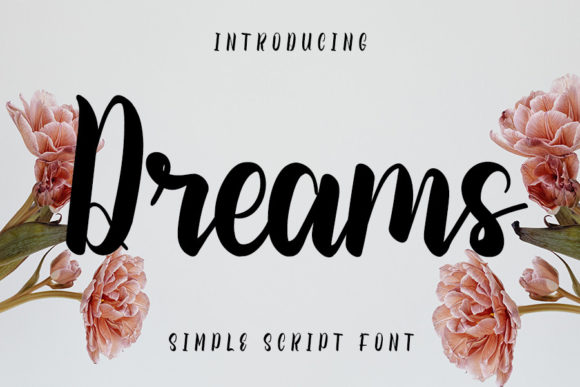
About Dreams Font
Introducing “Dreams,” a lovely handwritten font crafted to make your work stand out with its elegant and curvy lines. This font is not just a typeface; it’s a carefully designed element that brings a touch of sophistication to your creative projects. Whether you’re working on product packaging, a branding project, magazine covers, social media graphics, weddings, or simply expressing words above a background, Dreams is the perfect choice.
The charm of Dreams lies in its delicate yet impactful design, where each character exudes elegance. Imagine using this font to enhance product packaging, where its graceful lines contribute to a refined and stylish presentation. Envision it in a branding project, adding a personal and sophisticated touch to your brand identity. Whether applied to magazine covers or social media visuals, Dreams becomes a versatile tool for creating eye-catching and memorable designs.
Dreams’ elegant and curvy lines give it a timeless and classic aesthetic, making it well-suited for various design contexts. Its versatility shines in different creative projects, adapting seamlessly to deliver a visual impact that is both charming and memorable.
Choose Dreams as the font that elevates your work with its lovely handwritten style. Let its elegant and curvy lines add a touch of sophistication to your product packaging, branding materials, and more. Allow Dreams to be the creative element that makes your projects stand out, creating a visual impact that is both charming and memorable.